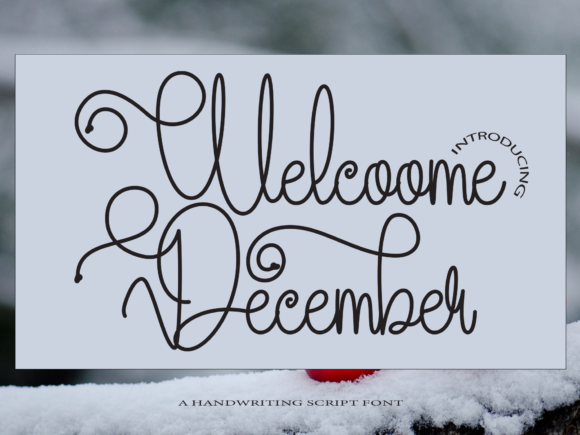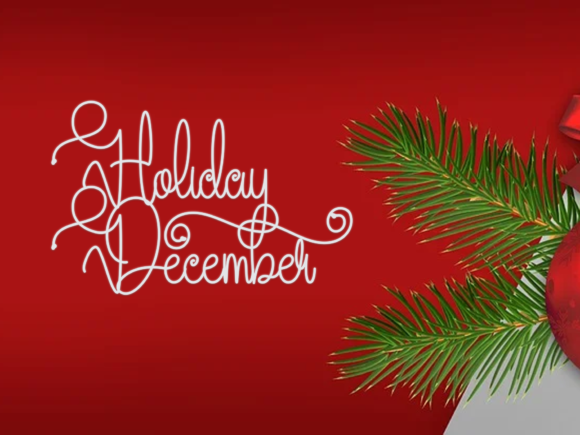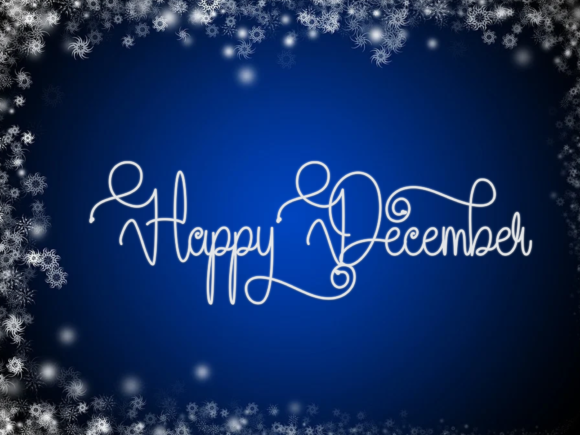
About Welcome December Font
Welcome December is a beautiful handwritten font made with care and attention to produce impeccable typography. Use it for any creative projects that need an authentic and charming touch!